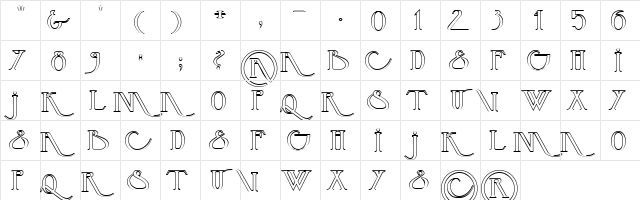
Backspace Outline Regular
Design Context for Backspace Outline Typeface
Backspace Outline is built around its visual character rather than neutral utility — its distinctive forms are designed to make an impression at display sizes.
Font Pairing: Pair with a clean neutral sans-serif for body copy to let Backspace Outline's character lead without overwhelming the composition.
Pro Tip: Treat Backspace Outline as the centrepiece of your typographic hierarchy. One strong heading set in a decorative face can carry an entire layout.